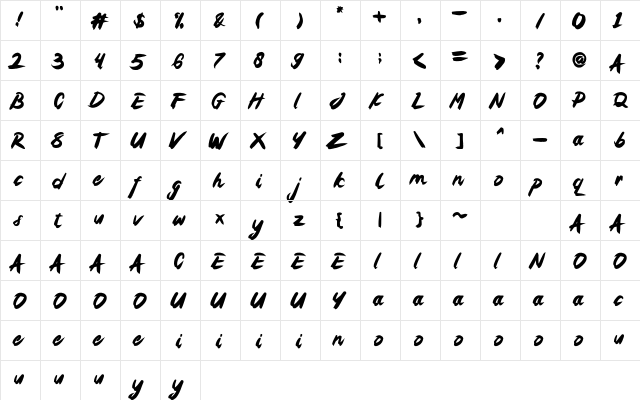
Aerstone Regular
| Designer | Mohamad Rois Ngainul Yakin |
Design Context for Aerstone Typeface
Aerstone is a composed and adaptable typeface that performs quietly and consistently across a wide range of design contexts.